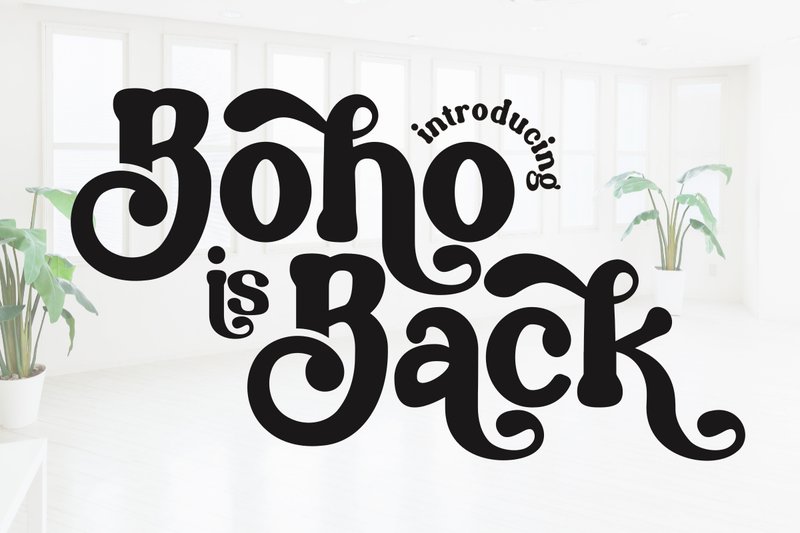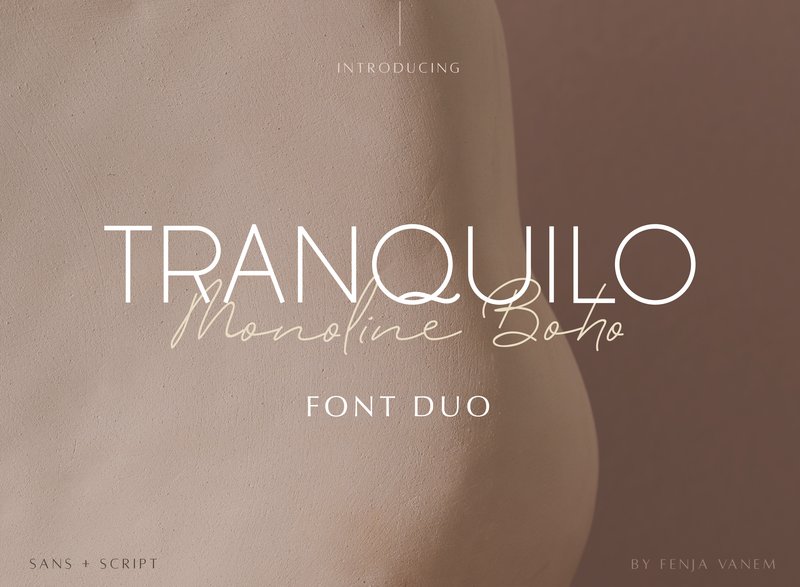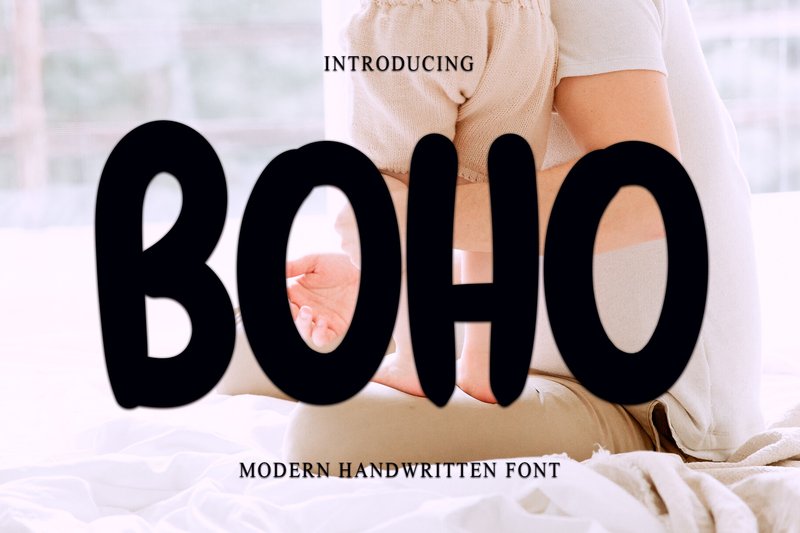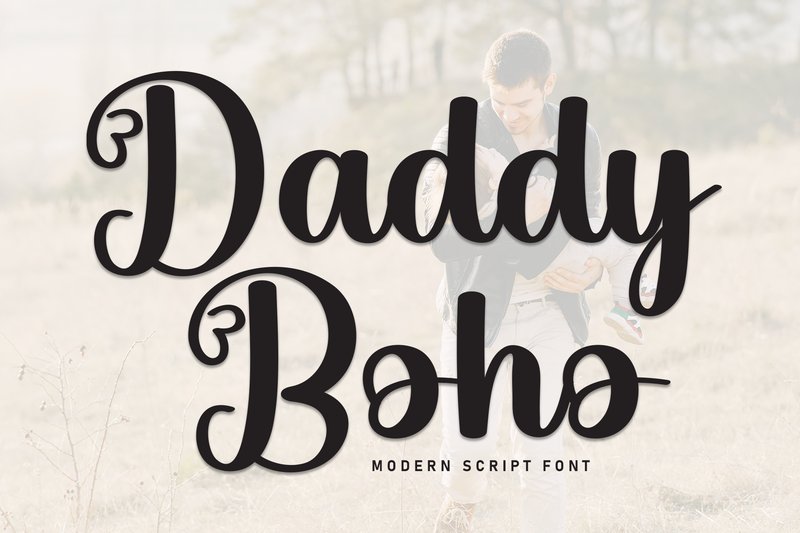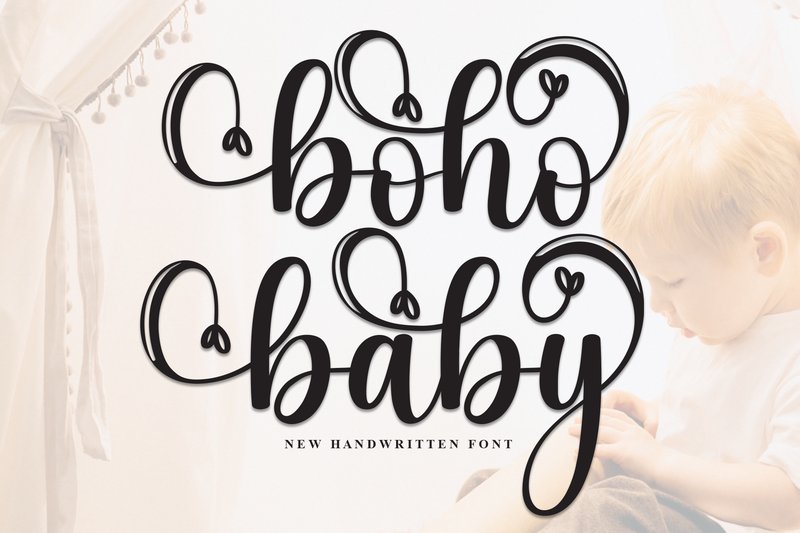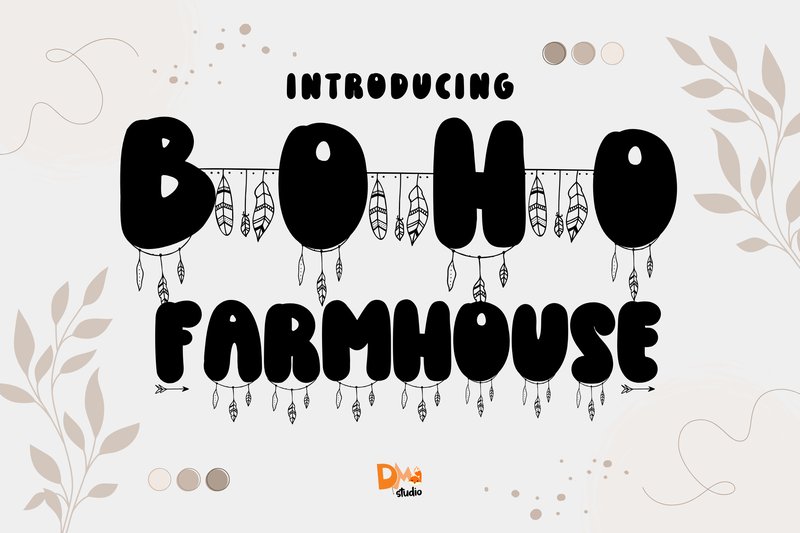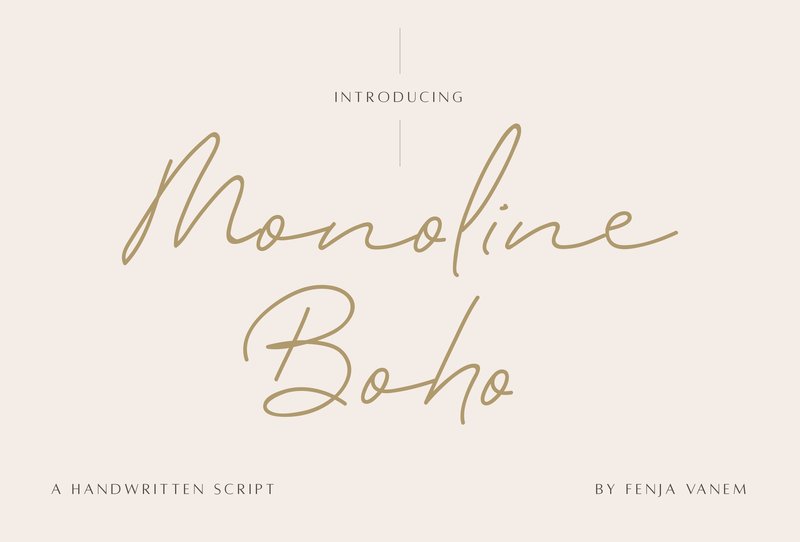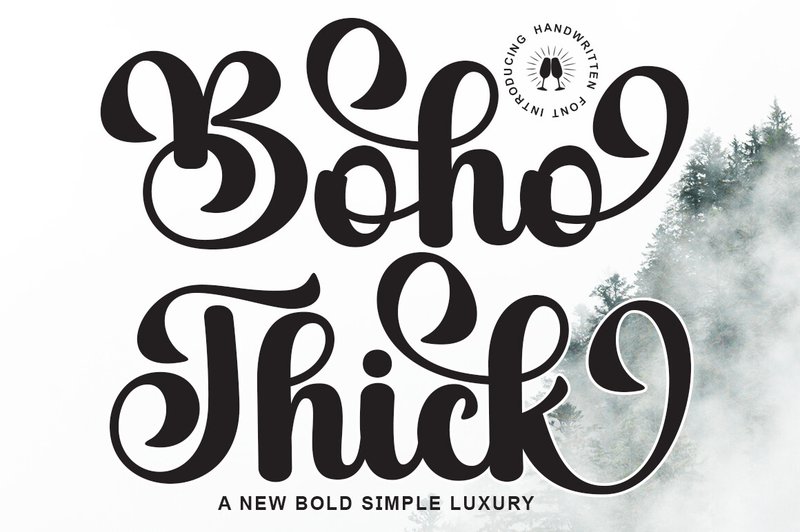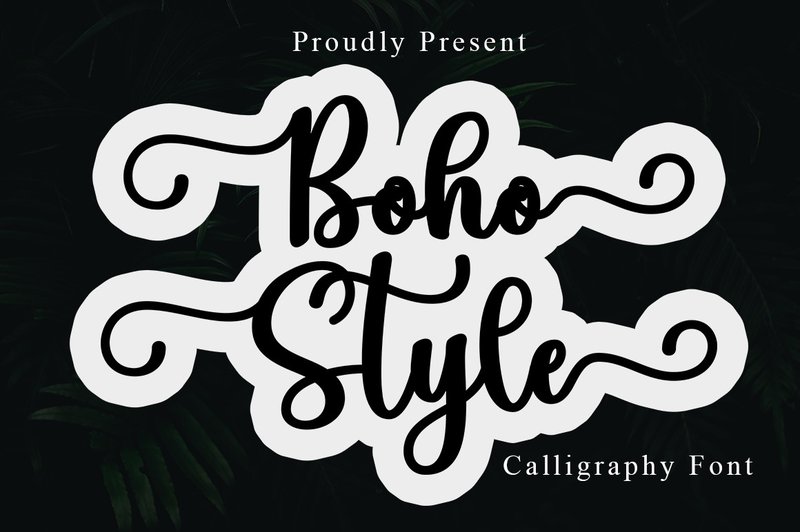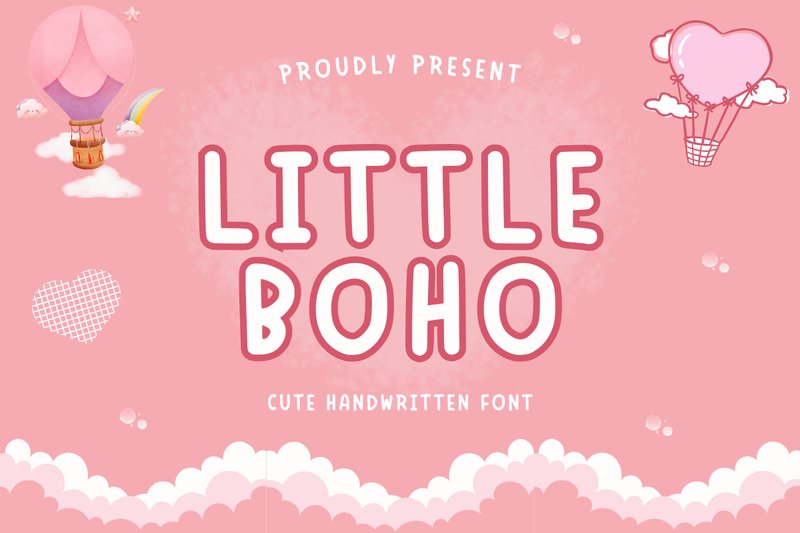
The bohemian aesthetic is stronger than ever in 2026, bringing with it a wave of organic, free-spirited design. At the heart of this trend are boho fonts, which capture a sense of handcrafted charm and whimsical elegance. Perfect for everything from wedding stationery and branding to social media graphics and DIY craft projects, these typefaces add instant warmth and authenticity. We’ve curated this list of 26 of the most popular and inspiring boho fonts that designers and crafters are loving right now. Get ready to find the perfect typeface to bring your earthy, artistic visions to life.
1. Boho is Back (by Eystore)
Boho is Back (by Eystore) channels the groovy, free-spirited energy of the 1970s with its delightfully chunky and bold letterforms. This display font feels both nostalgic and refreshingly current, bringing an immediate sense of warmth and personality to any design. Its retro-style touches and playful curves make it a standout choice for projects that need to feel authentic, handcrafted, and full of character. It’s the kind of font that doesn’t just spell out words; it infuses them with a laid-back, bohemian soul.
- Bold, chunky letterforms for high impact
- Unique retro-style details and flourishes
- A warm and characterful display typeface
- Apparel design and expressive quote graphics
- Eye-catching branding for artisanal products
- Stylish social media posts and event invitations
- Stickers and packaging that need a fun, retro feel
2. Tranquilo Monoline Boho (by Pretty Decadent)
Tranquilo Monoline Boho (by Pretty Decadent) is an absolute must-have for designers crafting visuals for luxury wellness studios or high-end artisan brands. This font duo masterfully pairs a clean, minimalist sans-serif with a graceful, flowing script, creating a look that is both grounded and aspirational. Its refined letterforms exude a quiet confidence, making it a perfect choice for projects that need to feel sophisticated and effortlessly chic. The harmony between the two styles provides a complete typographic toolkit for building a cohesive and elegant brand identity right out of the box.
- Elegant font duo featuring a sleek sans-serif and a monoline script.
- Minimalist letterforms crafted with a luxurious and sophisticated feel.
- Perfectly balanced for creating harmonious typographic pairings.
- High-end branding for lifestyle, beauty, and fashion labels.
- Sophisticated editorial layouts and magazine headlines.
- Creating chic wedding invitations and stationery suites.
- Minimalist product packaging that requires a touch of class.
3. Boho (by PiPi Creative)
Boho (by PiPi Creative) is like the first blush of a new romance, a whispered secret shared between lovers. This magical script font flows across the page with an effortless elegance, each character a carefully penned stroke of affection. Its delicate and organic letterforms are perfect for designers looking to infuse their work with a deeply personal and artistic touch, transforming simple text into a heartfelt statement. It’s a timeless choice for projects that need a whisper of grace and a dose of handcrafted charm.
- Elegant, flowing script style
- Handwritten, calligraphic details
- Organic letterforms with a touch of magic
- Includes a full set of upper and lowercase characters
- Trending social media graphics and quote images
- Wedding invitations and romantic event stationery
- Artisanal branding and boutique logos
- DIY craft projects and personalized signage
4. Daddy Boho (by william jhordy)
Daddy Boho (by william jhordy) feels less like a digital font and more like a piece of personal calligraphy penned with a fine-tipped ink pen. Its elegantly inconsistent letterforms and fluid, connecting strokes give it an authentic, handcrafted warmth, striking a beautiful balance between modern chic and timeless grace. This font doesn’t just spell out words; it imbues them with a sophisticated, personal touch perfect for making a memorable statement.
- Elegant, flowing strokes with a calligraphic feel
- A modern handwritten style that maintains legibility
- Full character set with an authentic, personal charm
- Signature logos and sophisticated personal branding
- Upscale wedding invitations and event stationery
- Chic editorial layouts and lifestyle blog headers
- Elegant quotes for social media graphics
5. Baby Boho (by Roronoa zoro.S.P.D)
Baby Boho (by Roronoa zoro.S.P.D) If you are looking for a font that blends innocent charm with a confident, modern style, Baby Boho is a delightful discovery. This handwritten typeface is bursting with personality, defined by its bold, friendly strokes and signature heart-shaped tails that add a touch of sweetness to every character. It strikes a beautiful balance between being playfully handcrafted and professionally stylish, making it an incredibly versatile choice for designs that need to feel warm, personal, and utterly current.
- Playful, bold handwritten style
- Charming heart-shaped tails on select letters
- Clean and legible yet full of personality